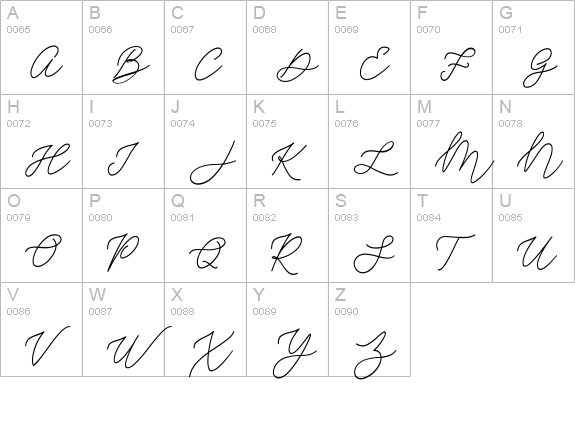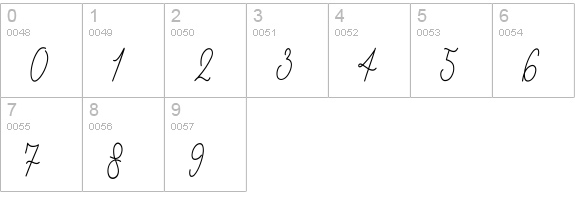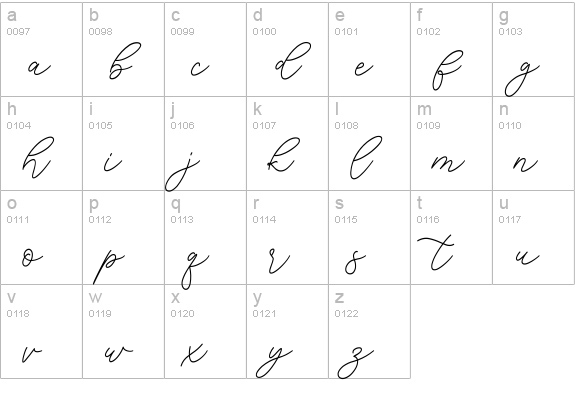
Lazuardi Font Details
Lazuardi is a free for personal use font in the Script > Handwritten category, designed by Serin Studio. It has been downloaded 366 times and is available for Windows, Mac and Linux.
Lazuardi font is a modern and stylish typeface that exudes elegance and sophistication. With its sleek lines and smooth curves, this font is perfect for adding a touch of class to any design project. Whether you're creating a logo, designing a website, or working on a print layout, Lazuardi font will elevate your work to the next level.